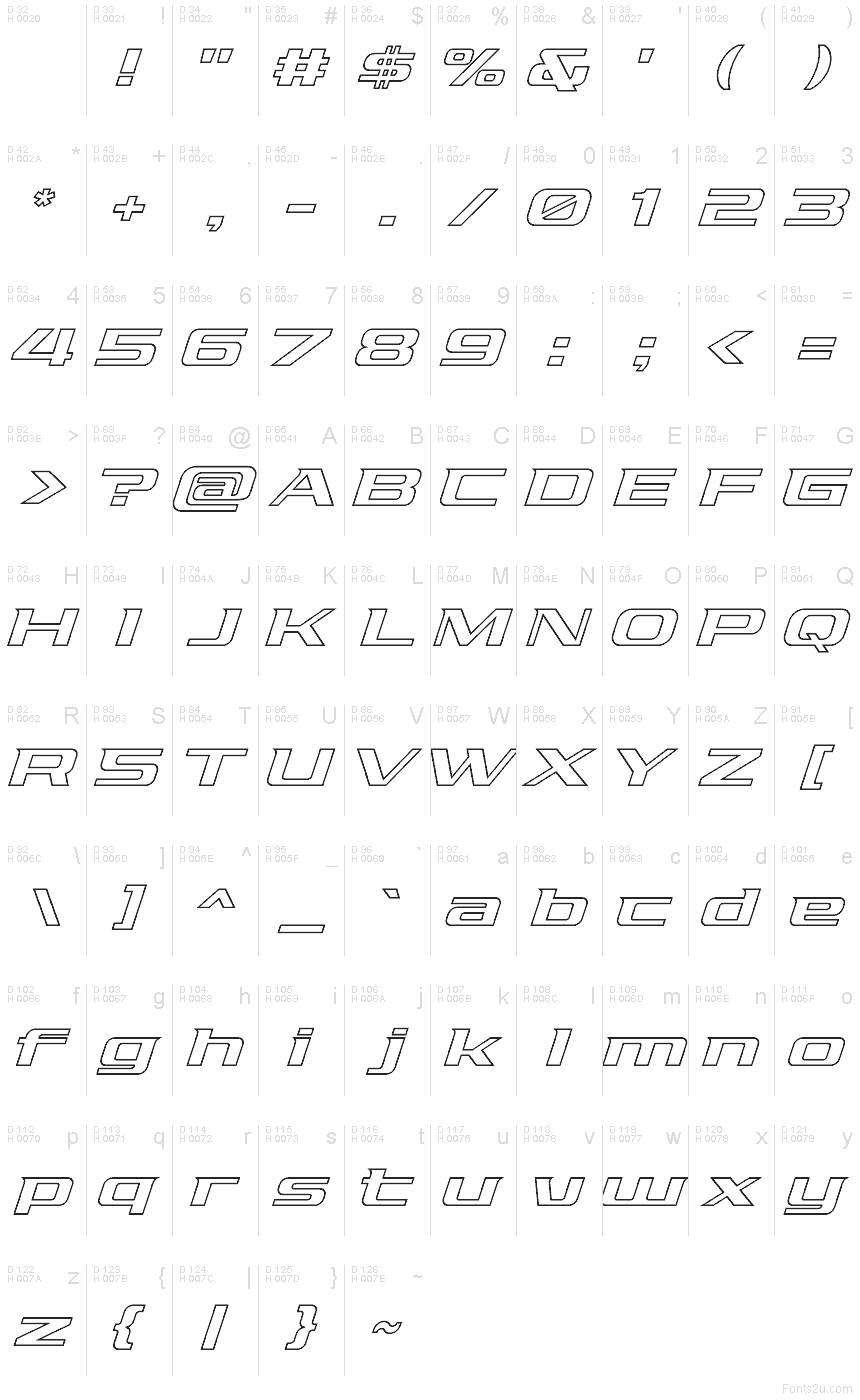
Pro Racing Slant Outline
Pro Racing Slant Outline font by Sronstudio is a sleek and modern display font with a sporty, italicized design. The forward-leaning structure combines geometric elements with an expanded width to give the typeface a subtle futuristic vibe. The typical techno finish created in an outlined style allows for creativity both in digital and printed projects.
This free display font can be used to create innovative posters for sports and gaming events, or stunning designs for apparel items such as t-shirts and hoodies. Incorporate it within magazine covers, web design headers, book covers, or stationery items like business cards.